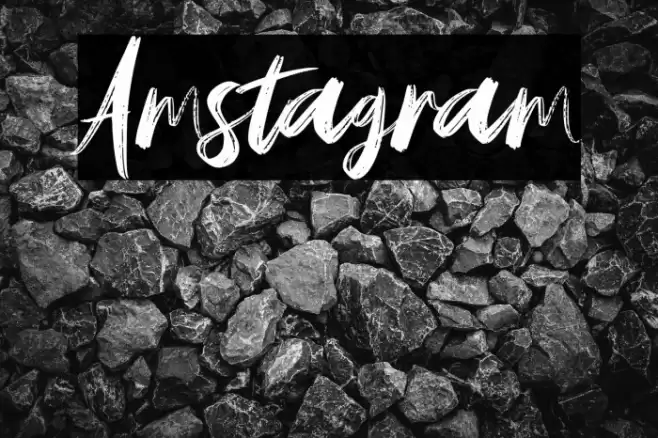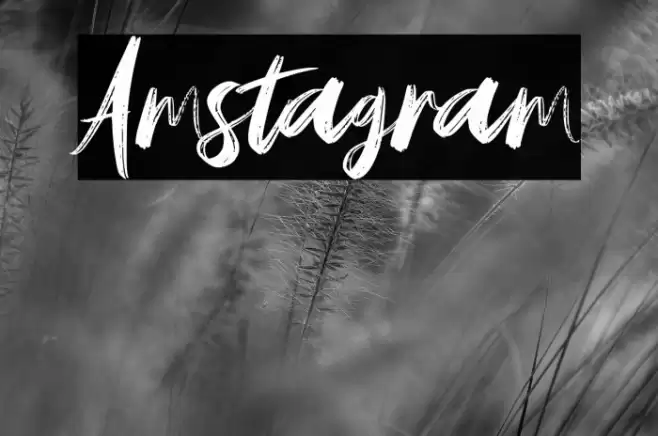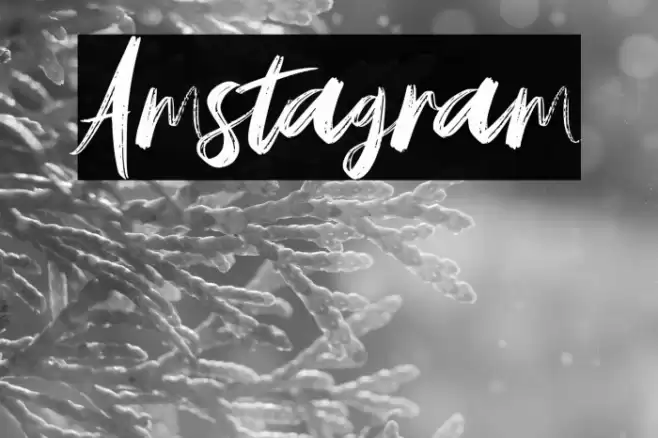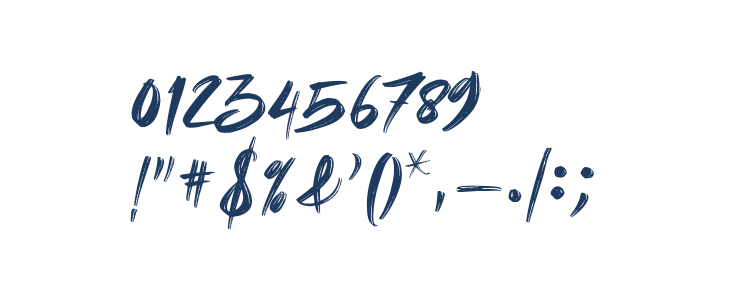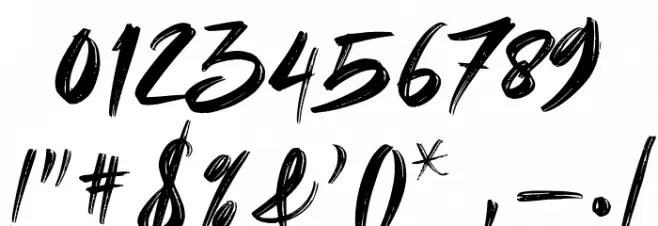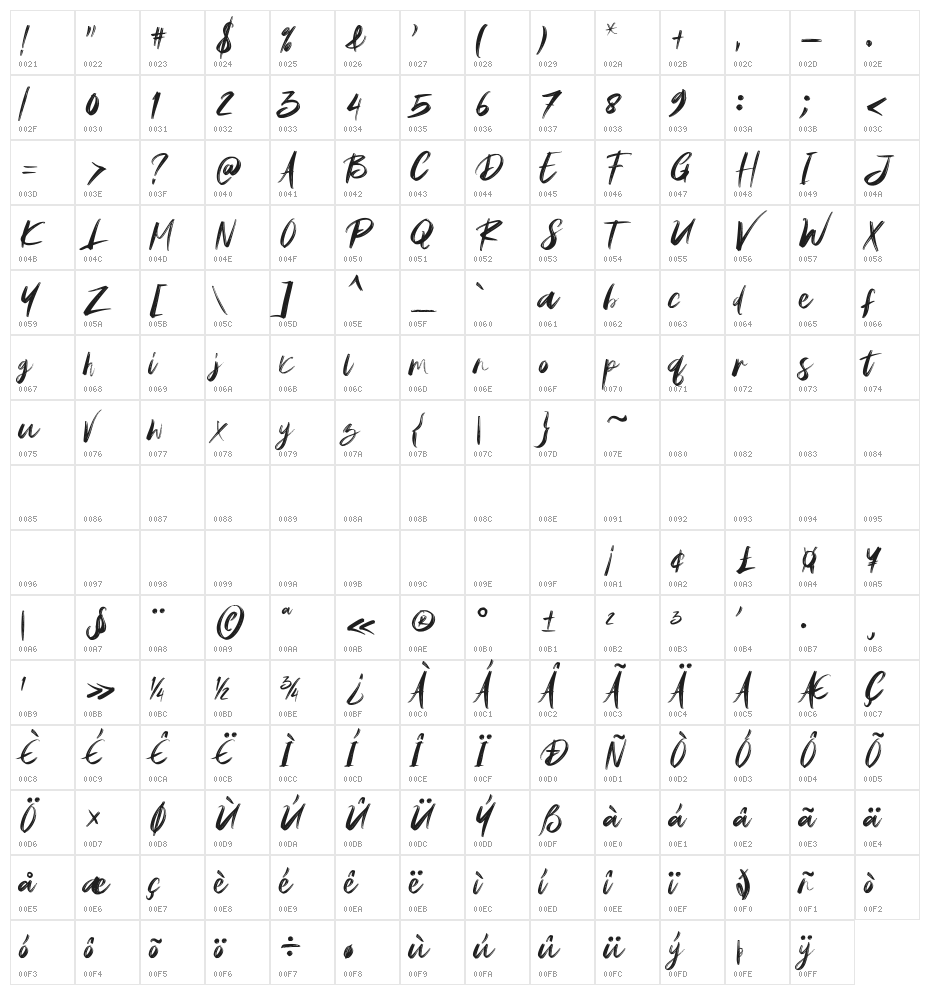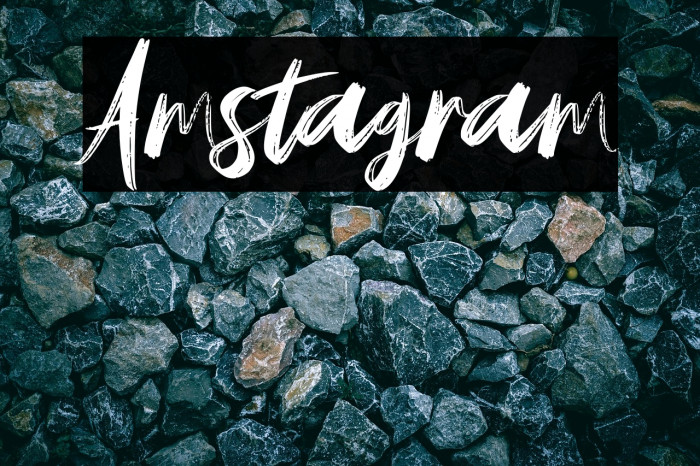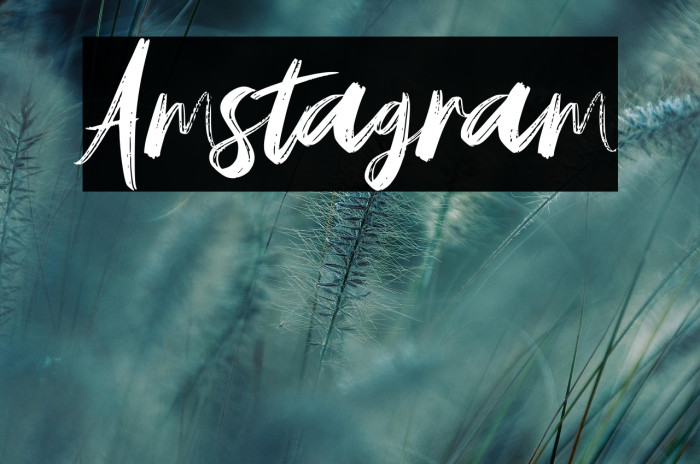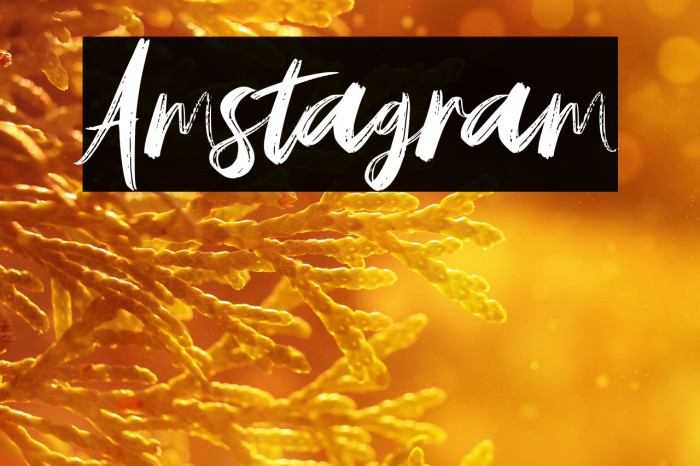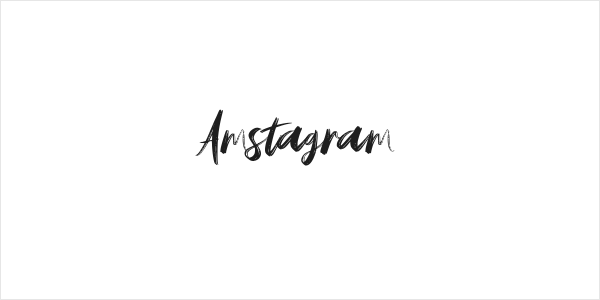
Amstagram Font
Amstagram Description
This font exudes a dynamic and energetic style, characterized by its bold, brush-like strokes that convey a sense of movement and spontaneity. The uppercase and lowercase letters maintain a consistent flow, with varying stroke widths that add a lively texture to the text. The numerals and special characters are equally expressive, ensuring a cohesive look across all elements. This font's hand-drawn appearance makes it ideal for projects that require a personal touch, such as invitations, posters, or branding materials. Its artistic flair and unique character make it stand out in any design context.
A bold, brush-style font with dynamic, hand-drawn strokes from Regular fonts.